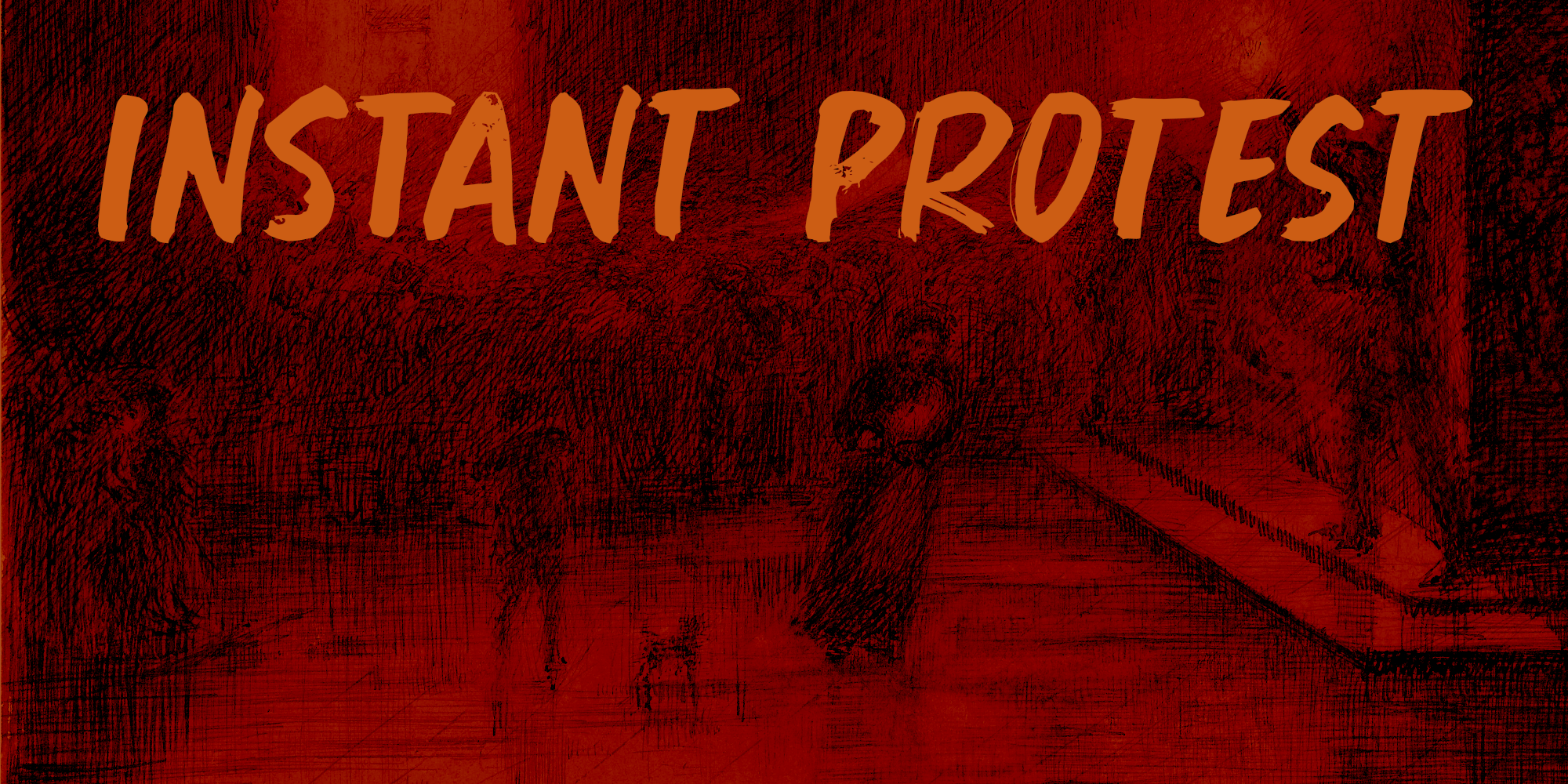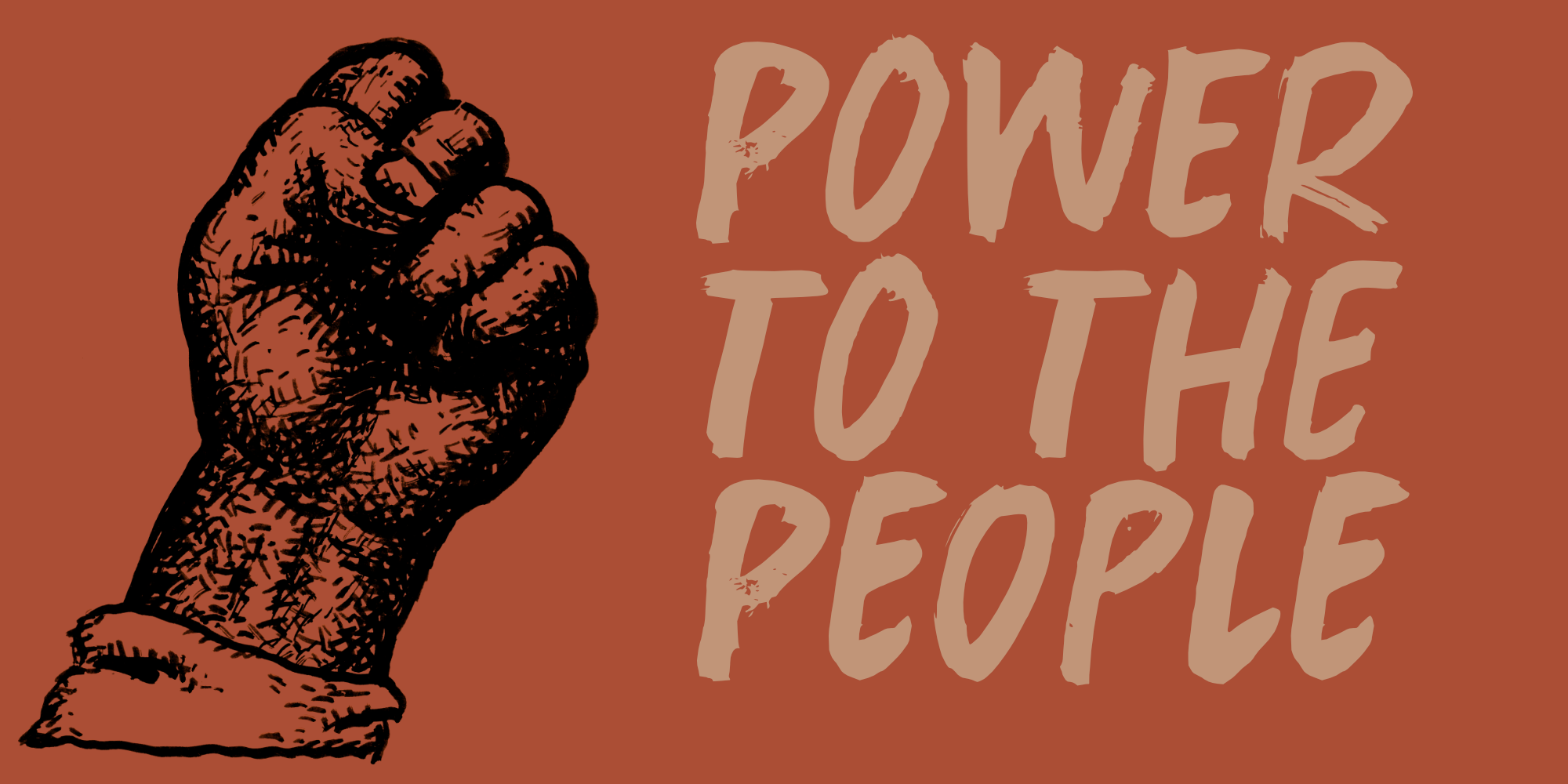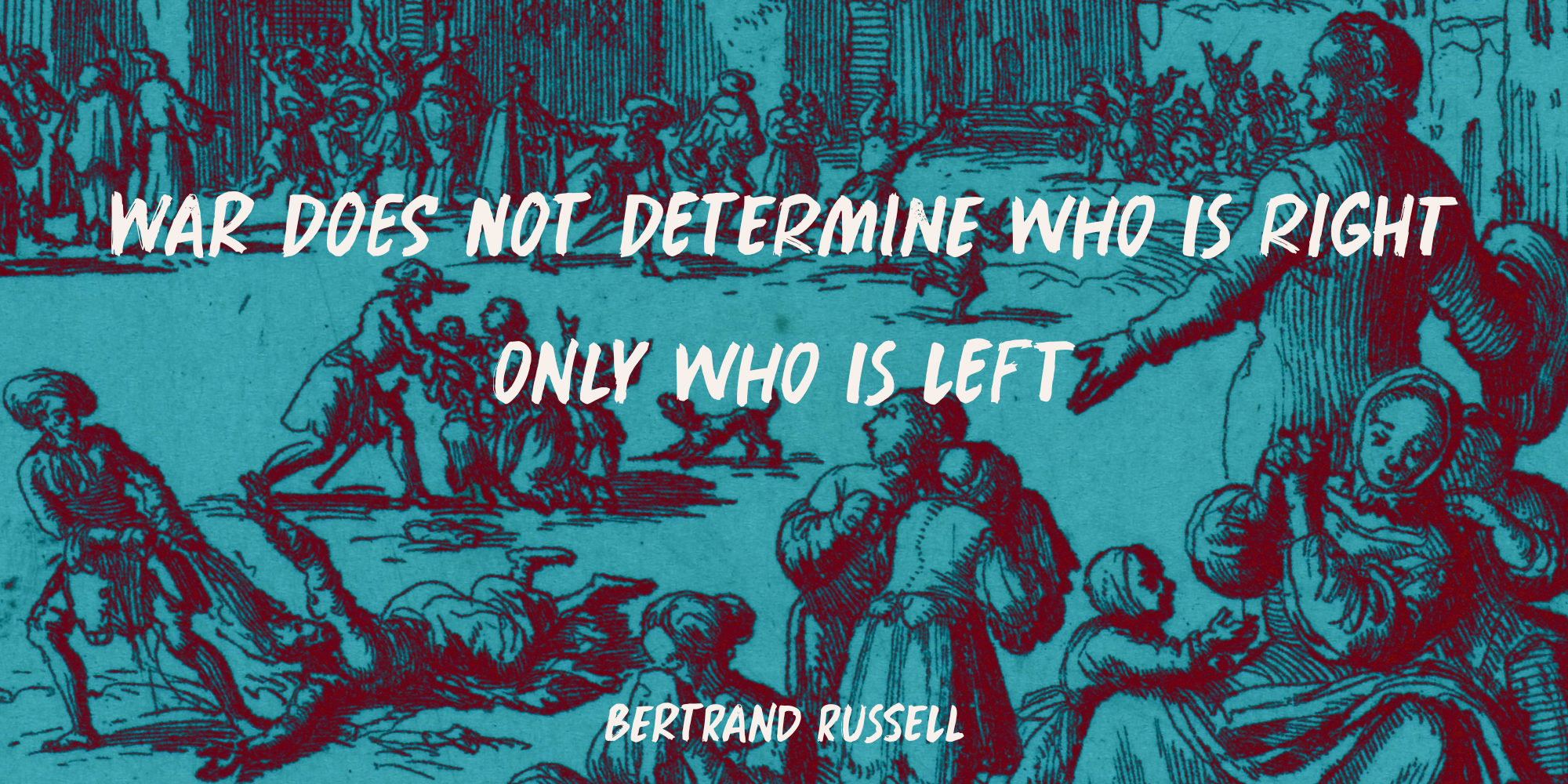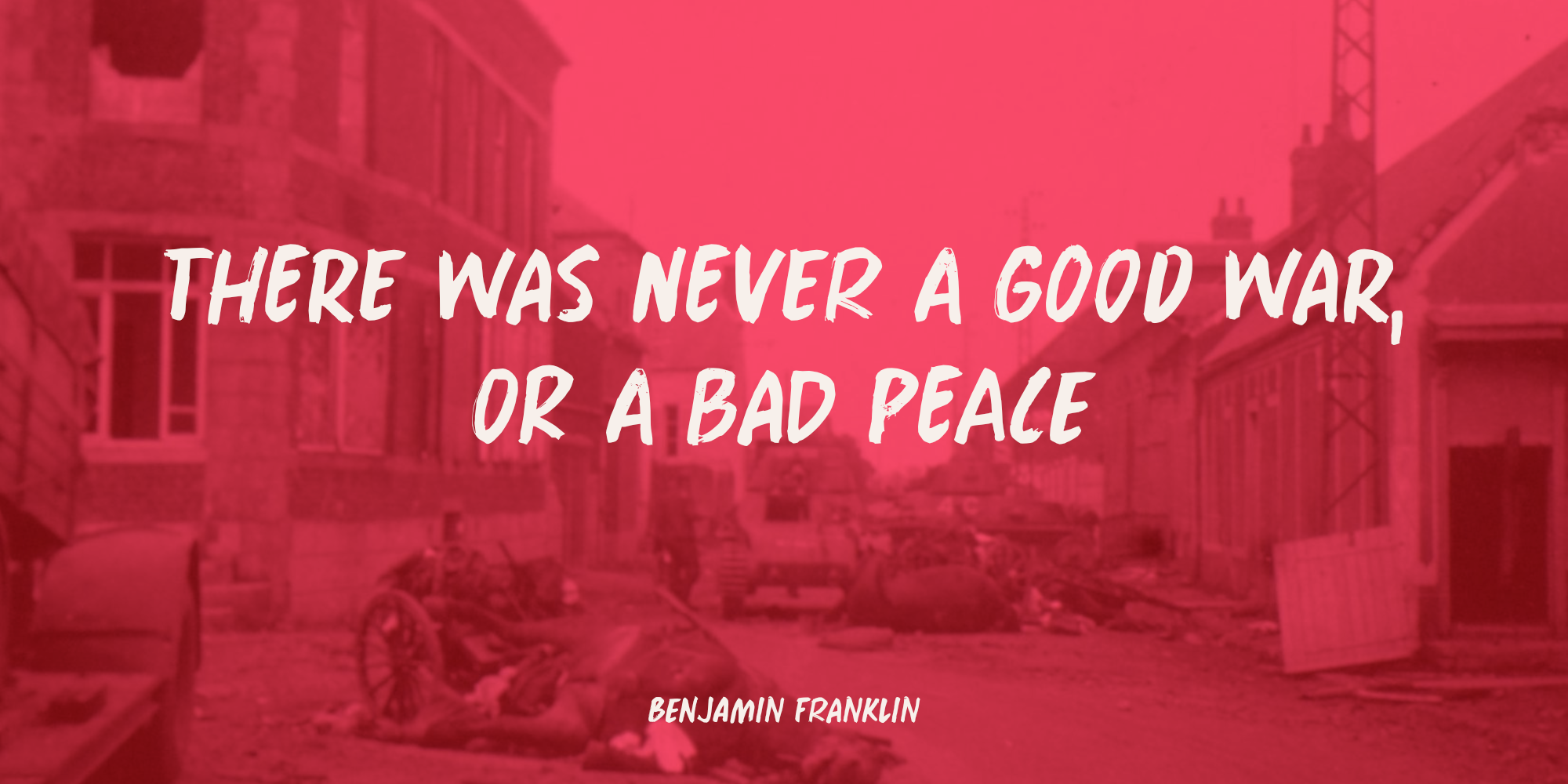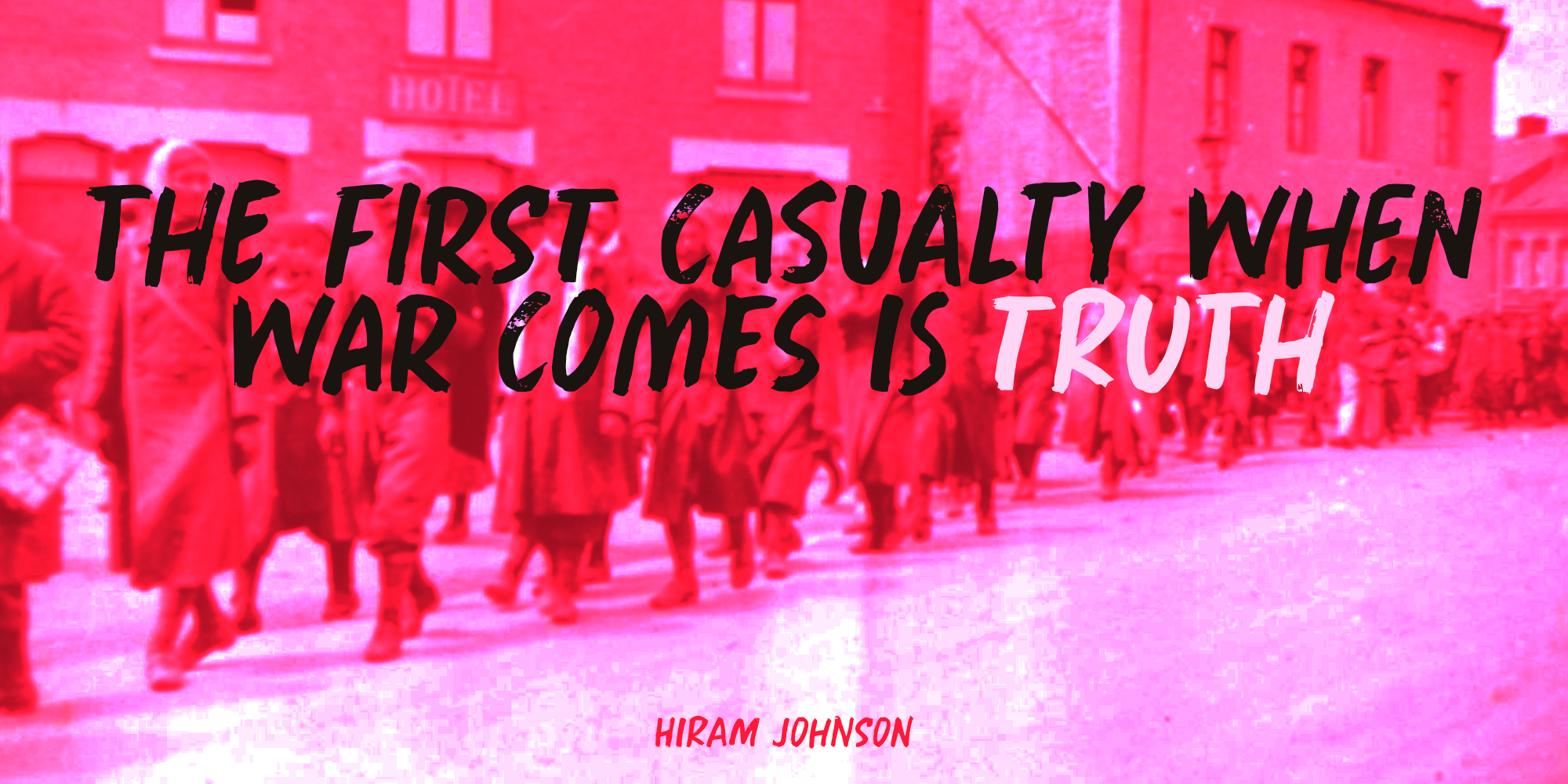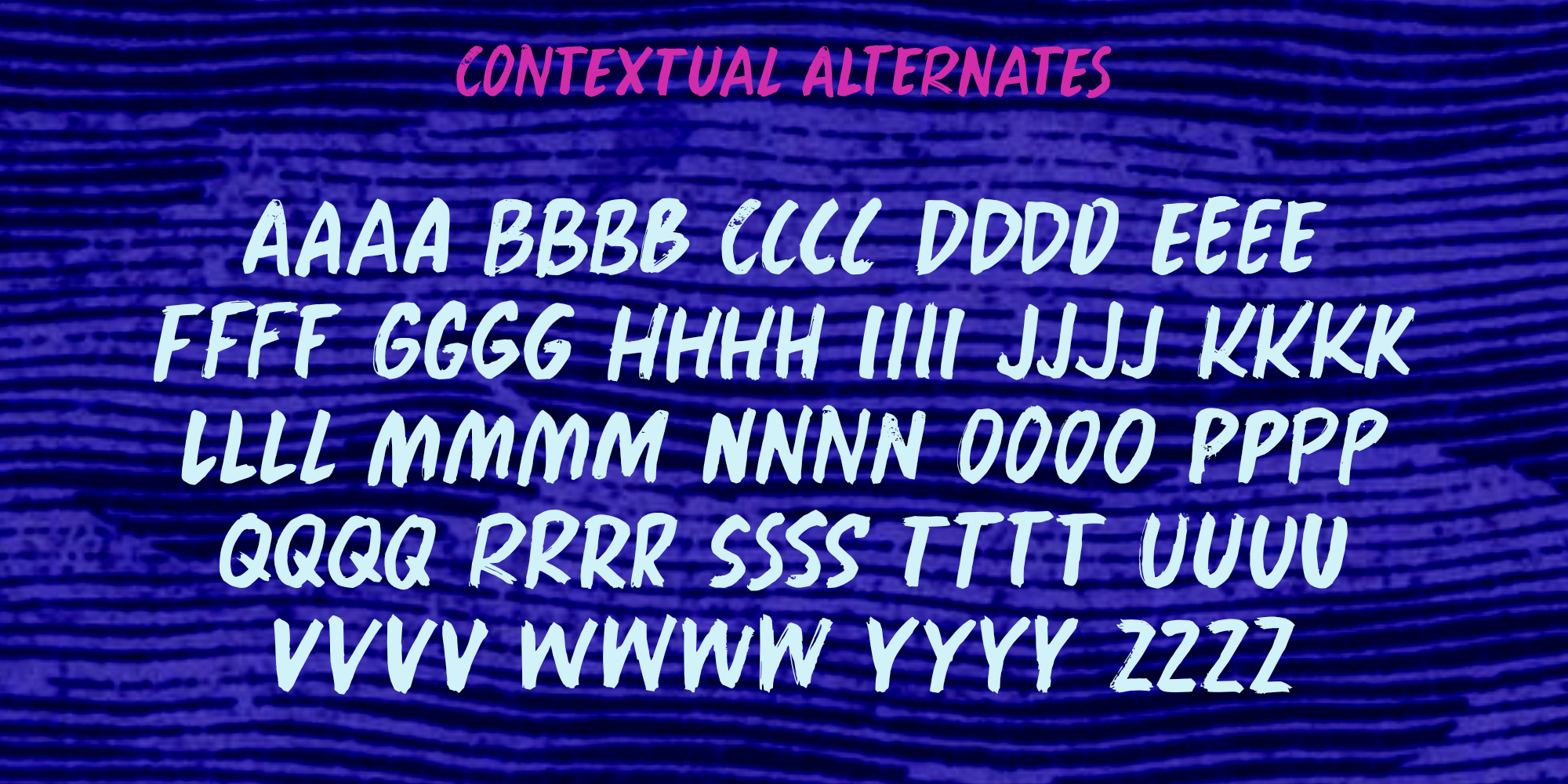
Instant Protest (1 font)
It is a slightly cursive, yet very legible font. It comes with serious language support (Greek, Vietnamese, etc) and some cool contextual alternates that cycle as you type.